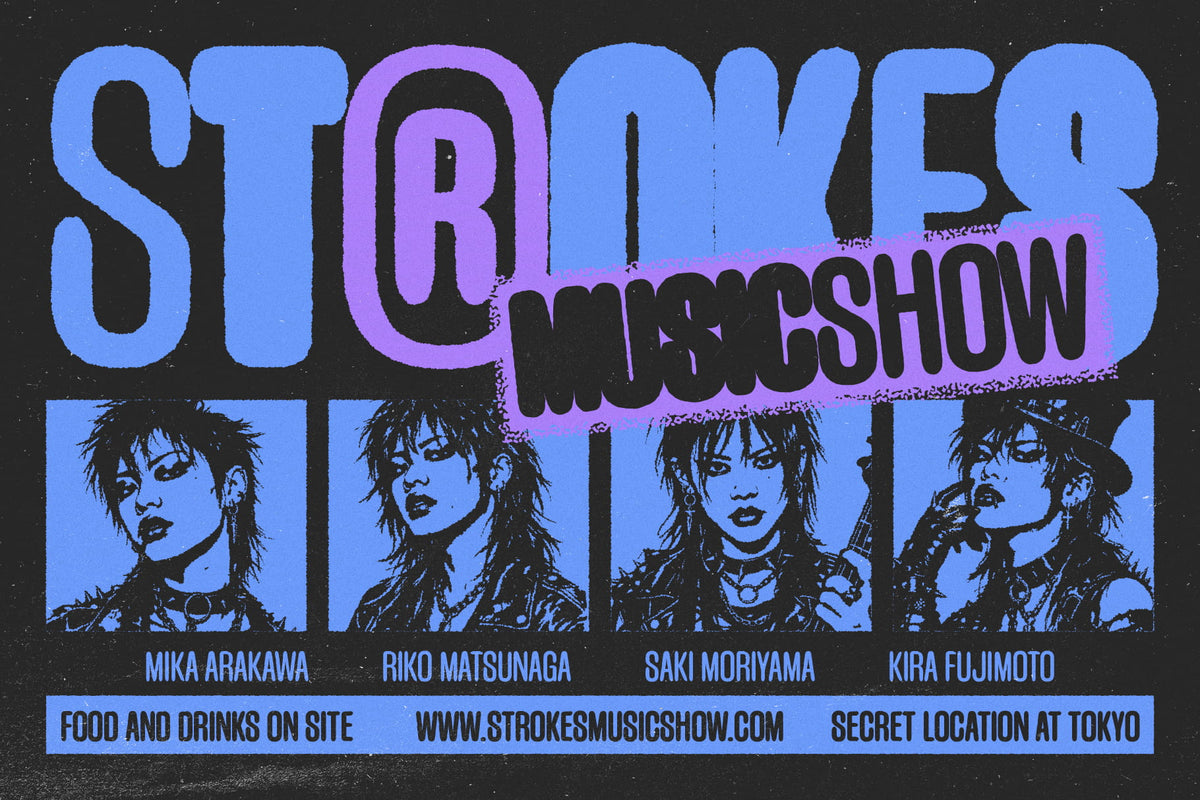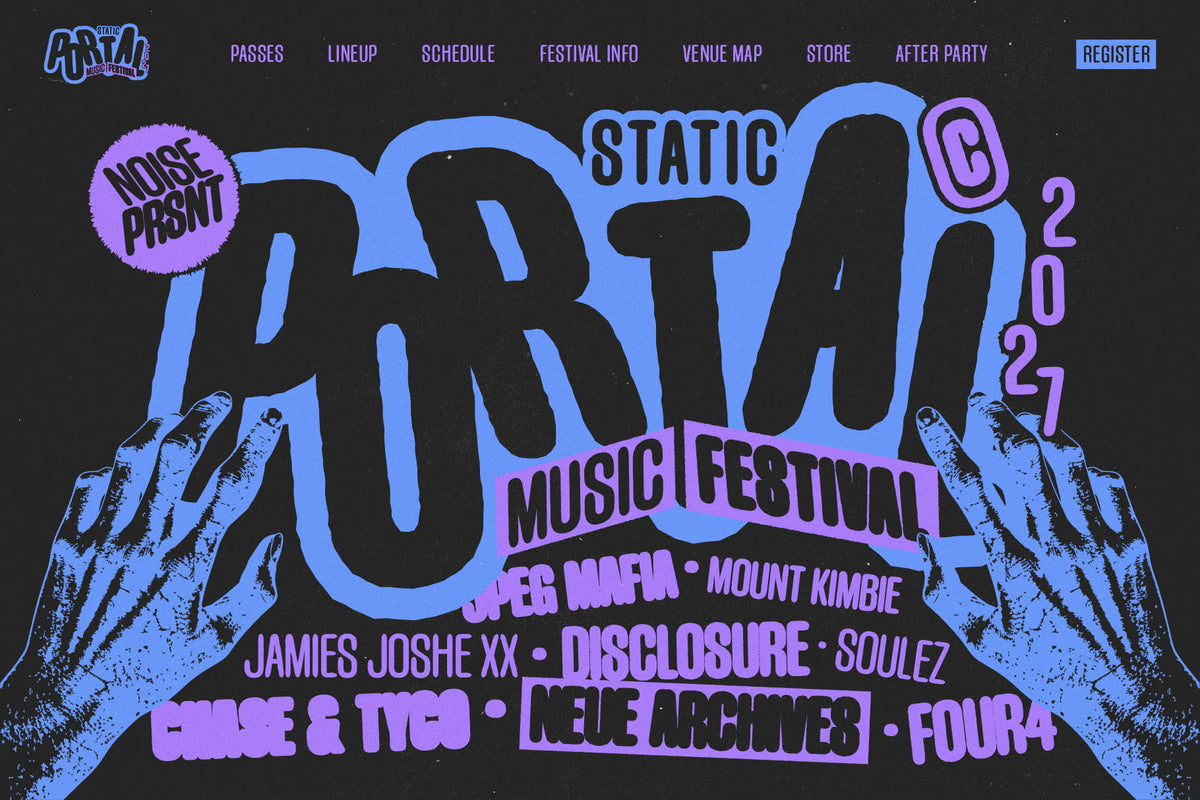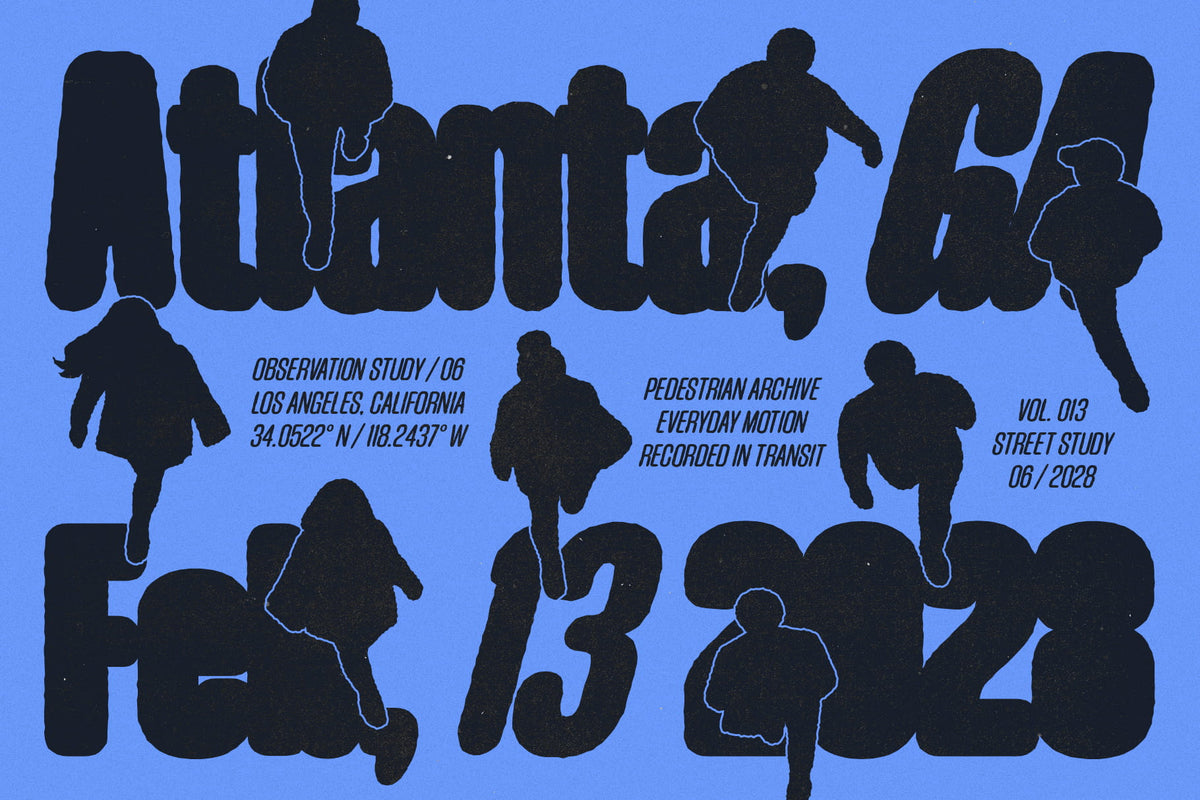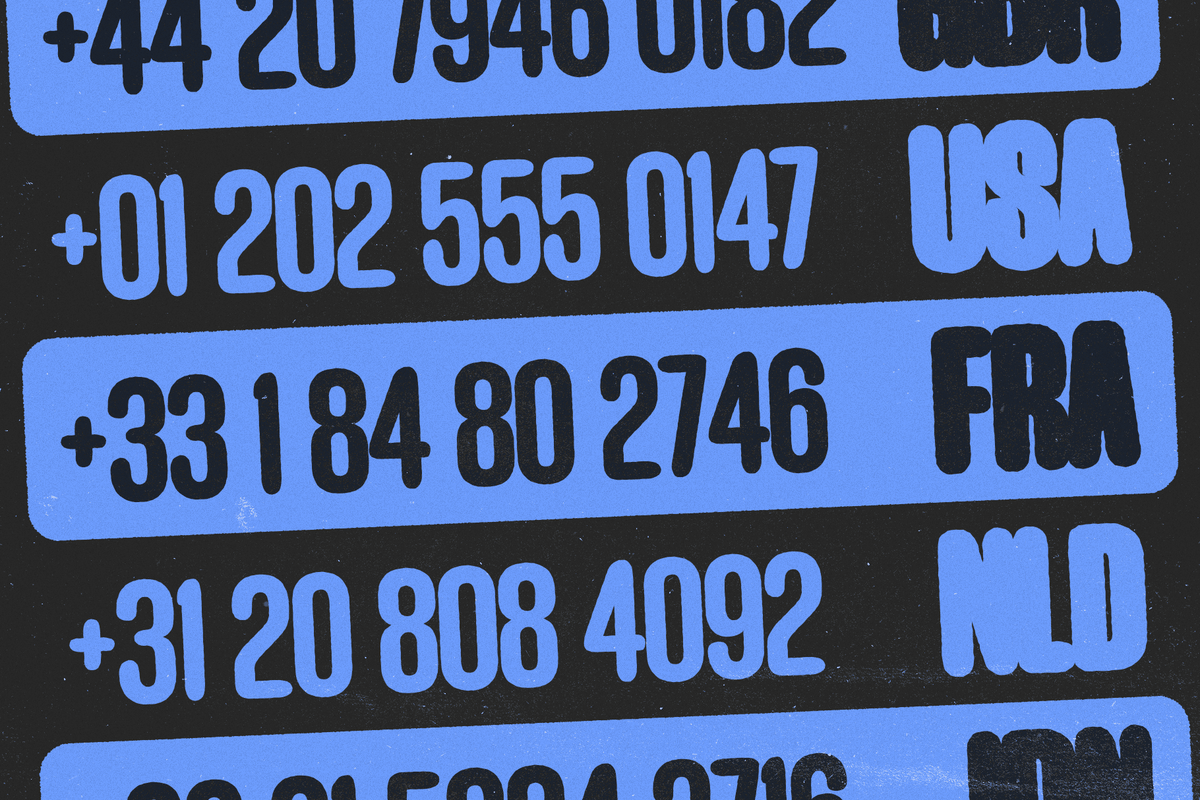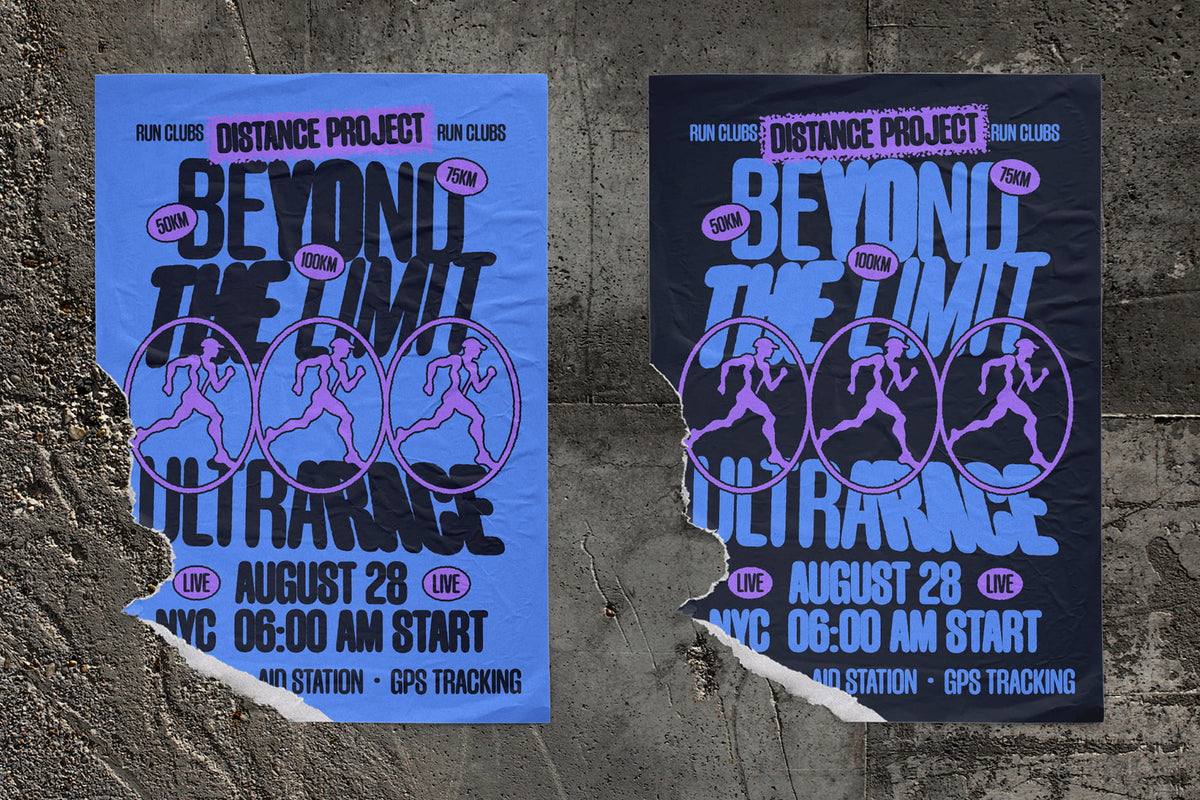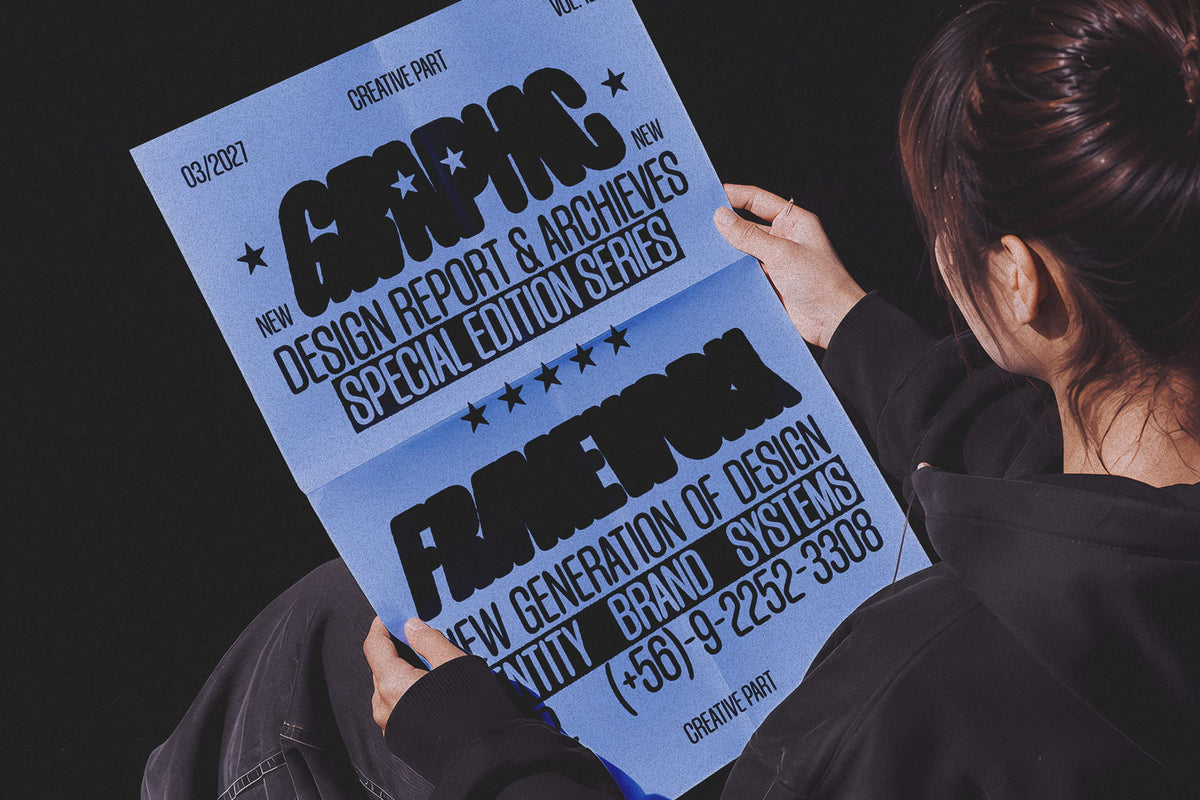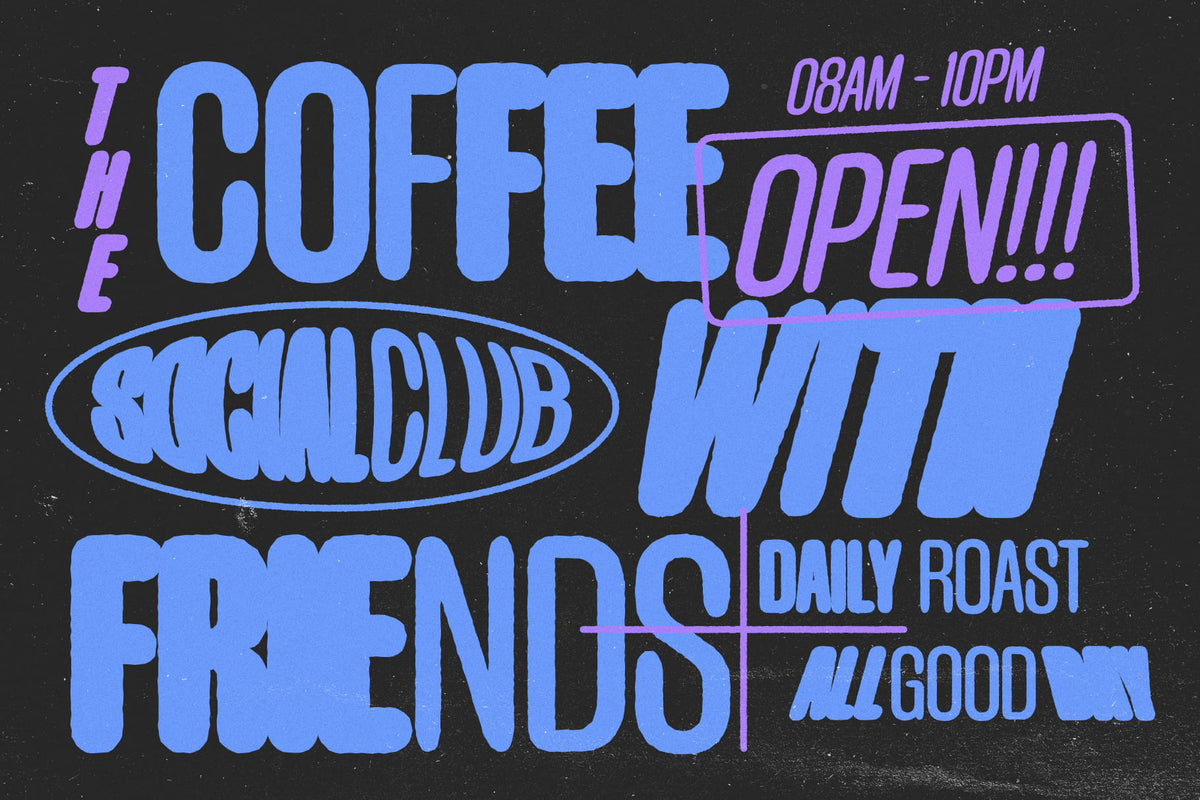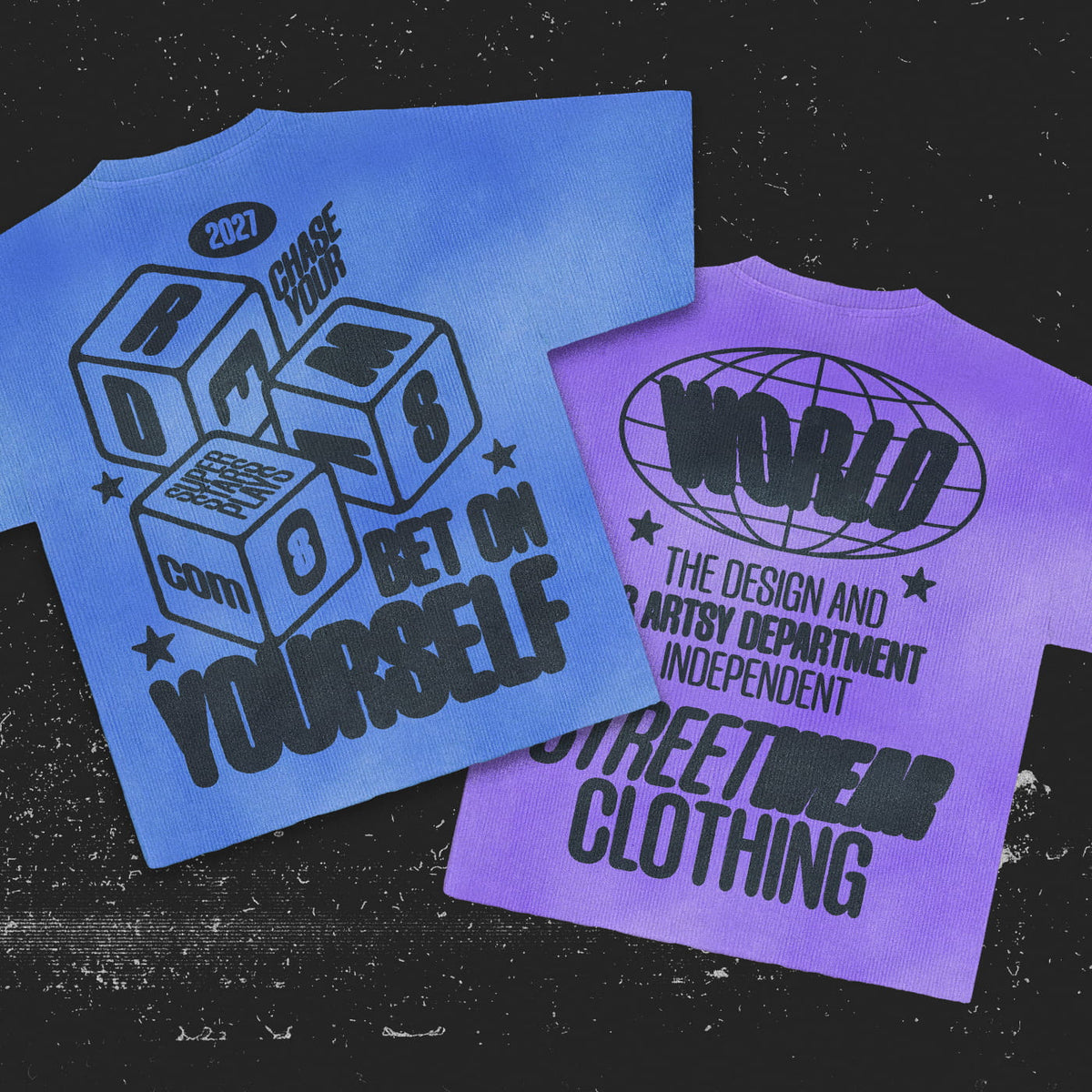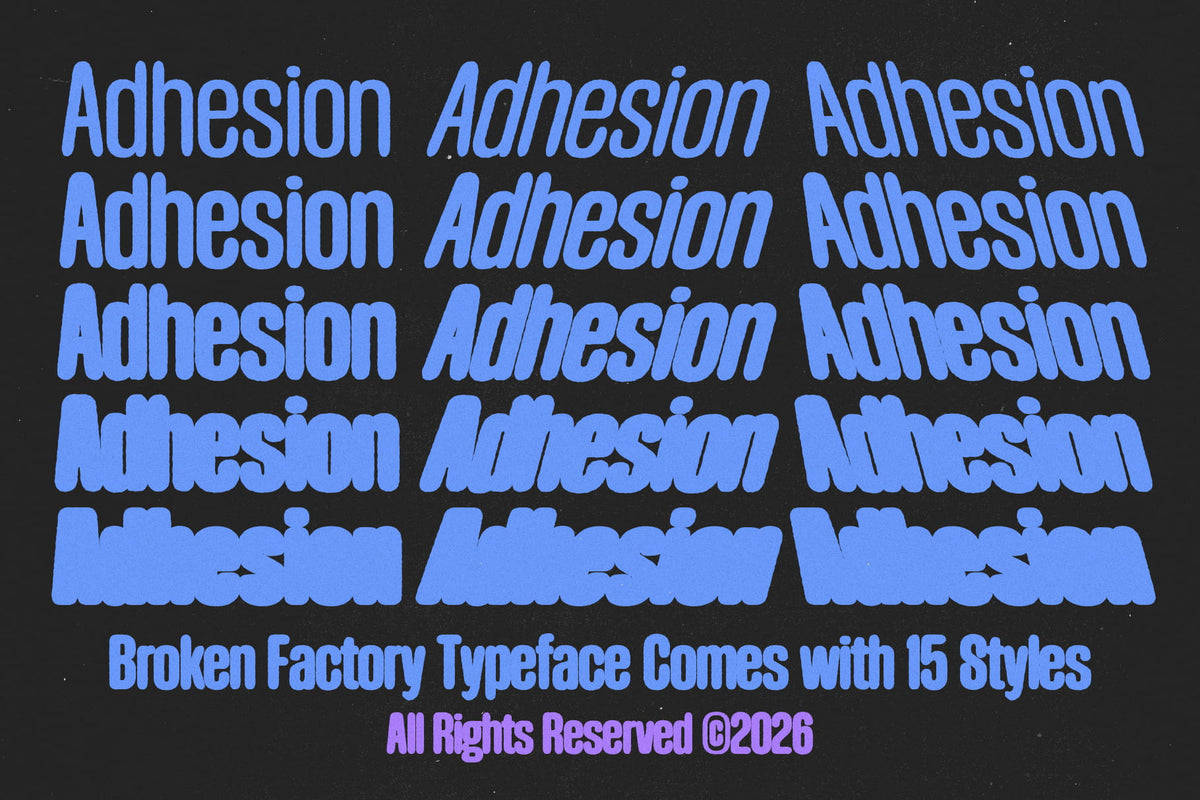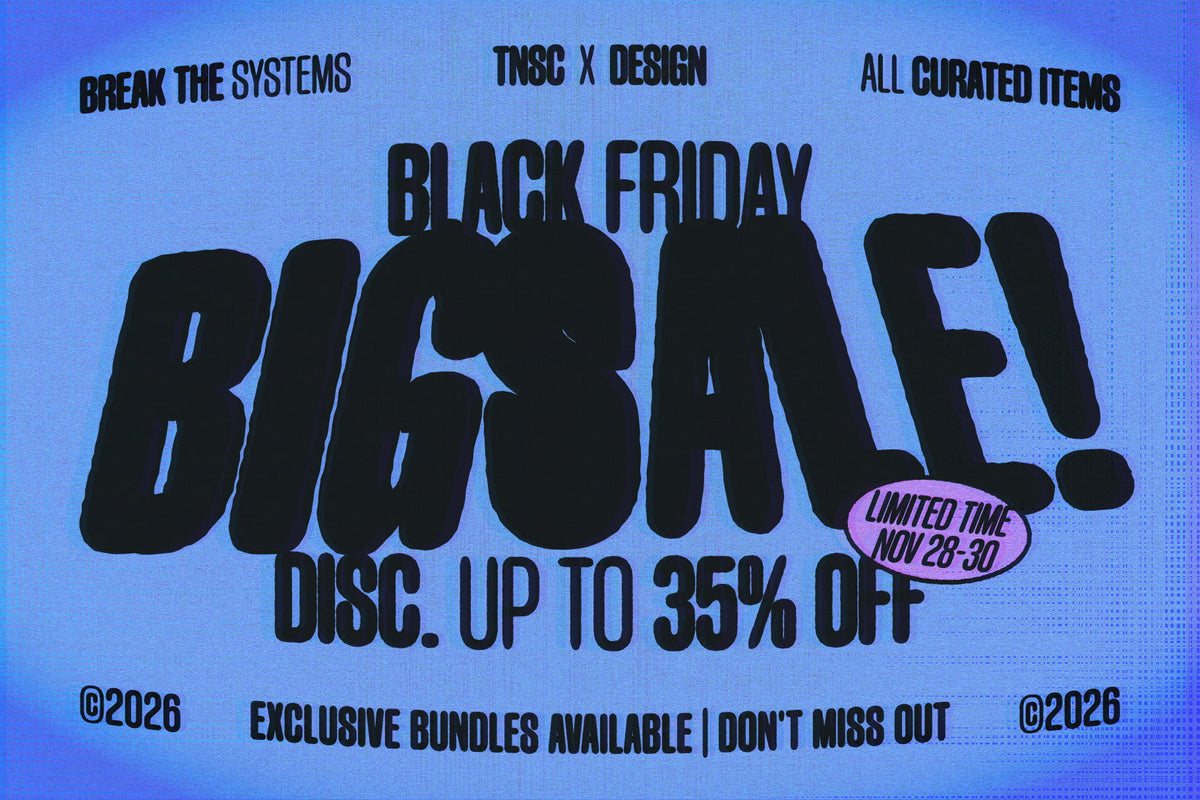
TNSC Broken Factory Typeface
Broken Factory is a bold experimental display typeface with a raw, energetic, and slightly distorted personality. Inspired by music posters, underground club graphics, streetwear, festival identities, and contemporary youth culture, it features heavy condensed shapes, rough expressive forms, and a strong visual rhythm that makes every headline feel loud and immediate.
The family comes with 15 styles, giving you plenty of flexibility to explore different moods and compositions, from solid heavy headlines to softer, slanted, rough, blurred, and more experimental treatments. Its expressive construction works especially well for posters, music festivals, album artwork, apparel, branding, editorial headlines, event graphics, social media, and street-inspired visual identities.
• 454 Glyphs
• 15 Styles (Light, Light Italic, Light Retalic, Regular, Italic, Retalic, Medium, Medium Italic, Medium Retalic, Bold, Bold Italic, Bold Retalic, Black, Black Italic, Black Retalic)
• Lowercase
• Diacritics
• Ligatures
• Numerals (5 sets)
• Symbols
• Currency
• Mathematics
• Arrows